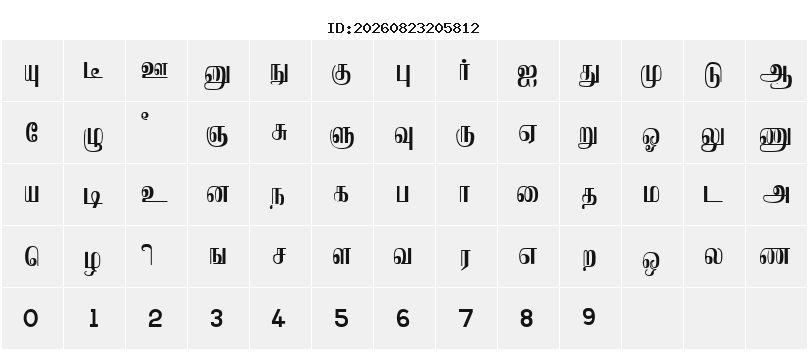
Saraswathy Preview
• Font Name: Saraswathy
• Full Font Name: Saraswathy Regular
About Saraswathy.ttf
Saraswathy.ttf is a modern, elegant sans-serif font designed for ultimate readability and visual harmony. Perfect for branding, headlines, web design, and print materials.